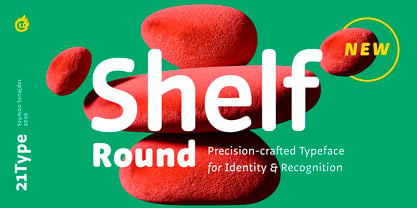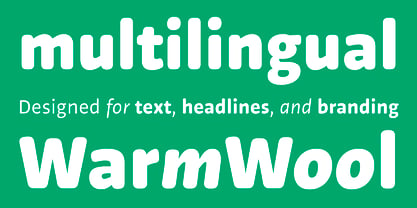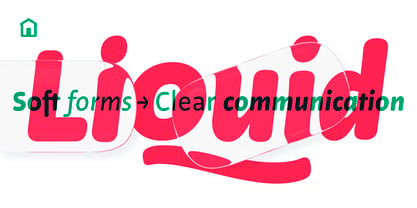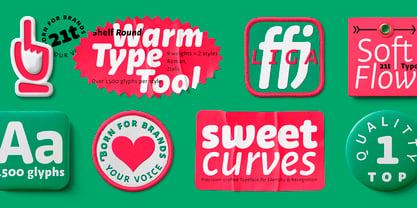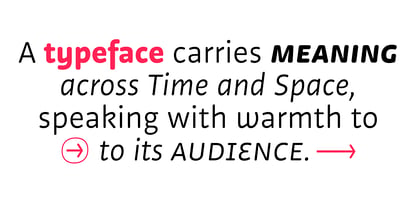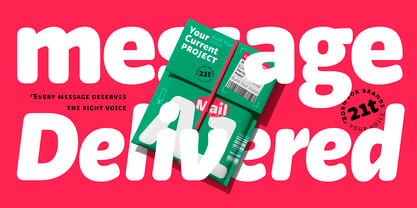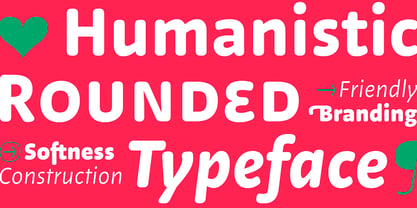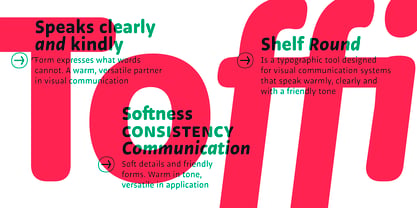
Shelf Round
La familia tipográfica Shelf Round fue diseñada por Szymon Sznajder y publicada por 21Type. Shelf Round contiene 18 estilos y opciones de paquete familiar. Más información sobre esta familia
Shelf Round
Speaks warmly and kindly
Shelf Round is a tool designed for visual
communication systems that need to feel
clear, consistent and approachable.
Shelf Round is a humanist sans-serif typeface with a soft, friendly character. It was developed from the structure of Shelf, but its rounded terminals and softened details shift the tone towards warmer, more approachable communication. As a result, it keeps the structure and legibility of the original family while introducing a softer and more recognisable character.
Shelf Round was designed for communication that needs to remain clear without feeling cold or anonymous. It can be used in visual identities, branding, product communication, publications and systems where typography needs to build a consistent, friendly tone.
Each style includes more than 1,500 glyphs, including small caps, a full set of numerals, stylistic alternates, an extensive arrow system and OpenType features. Shelf Round supports a broad range of Latin-based languages and was prepared for designers who need a typeface that combines refined drawing quality, legibility and a warmer tone of communication.